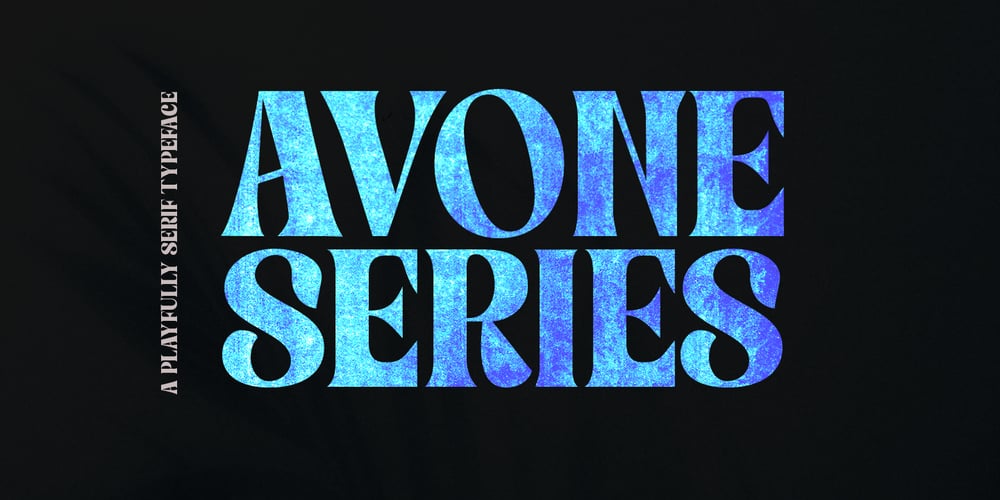
Avone Series Regular
Avone Series Regular font
Avone Series Regular Font Family was designed by khaidir and published by Gatype. Avone Series Regular contains 2 styles and family package options. Avone Series & Italic is a vintage typeface, featuring a clean and letterpress style, regular and original with added ligatures and symbols.Avone Series & Italic is perfect for all types of display purposes from branding, emblems, advertisements, t-shirts, etc., you name it.Avone Series & Italic (OT-TT)Avone Series & Italic is a modern fashion serif font, each letter is carefully crafted to make your text look unique.Feel free to message me if you have any questions!